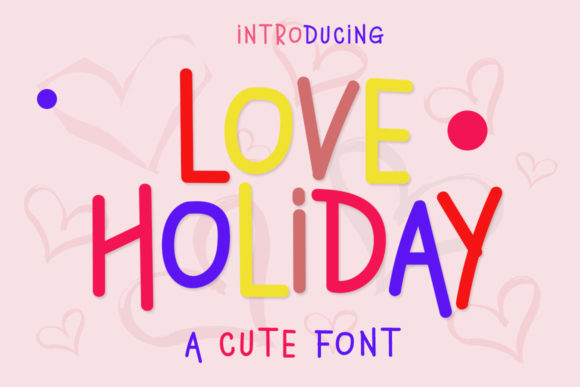
Journey into the realm of typography and unveil the enchanting beauty of Love Holiday Font - a captivating display font crafted by Seven Letter. This extraordinary creation exudes freshness, cleanliness, and elegance, leaving an indelible mark on your creative endeavors.
Love Holiday Font is not merely a collection of letters; it's an expression of joy and celebration. Its meticulously designed curves and delicate strokes evoke a sense of happiness and warmth, making it the perfect choice for adding a touch of cheer to your designs.
Unleash your imagination and let Love Holiday Font elevate your website logos, branding, posters, invitations, and social media posts. Its versatile nature allows it to seamlessly blend with various design styles, from classic to contemporary. The possibilities are endless, and the results are always stunning.
Love Holiday Font is more than just a font; it's an emotion, a feeling, a story waiting to be told. Let your designs speak volumes with this remarkable font, capturing the hearts and minds of your audience.
With Love Holiday Font, transform your creative vision into a delightful reality. Its exceptional quality and attention to detail will leave a lasting impression, ensuring that your designs shine brighter than ever before. Be bold, be creative, and let Love Holiday Font be your guiding light.